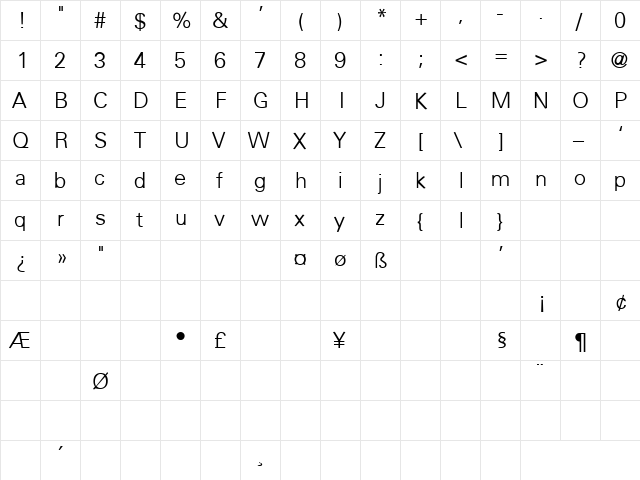
Black Dog 7 Regular
Design Context for Black Dog 7 Typeface
Black Dog 7 is a composed and adaptable typeface that performs quietly and consistently across a wide range of design contexts.